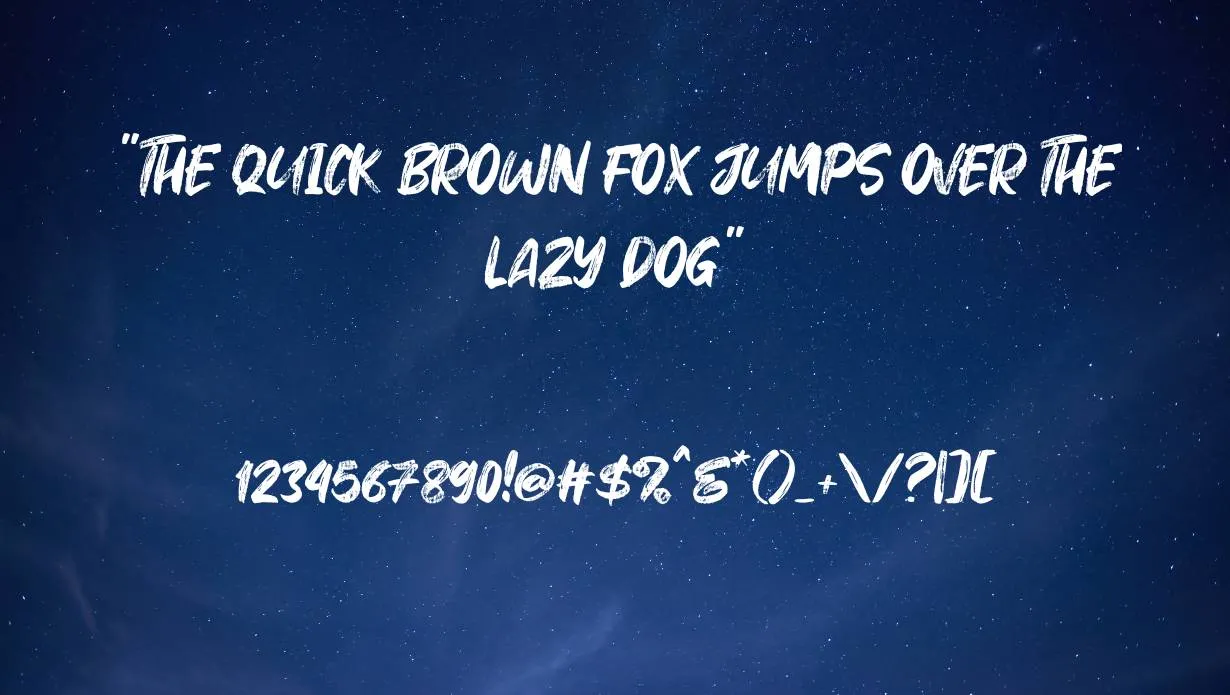
Hey October Font provides a sleek and contemporary design with a simple and friendly look.
It’s suitable for various design applications, from branding to web design, where clarity and simplicity are essential.
Hey October Font Family
| Name | Hey October Font |
| Designer | Khurasan |